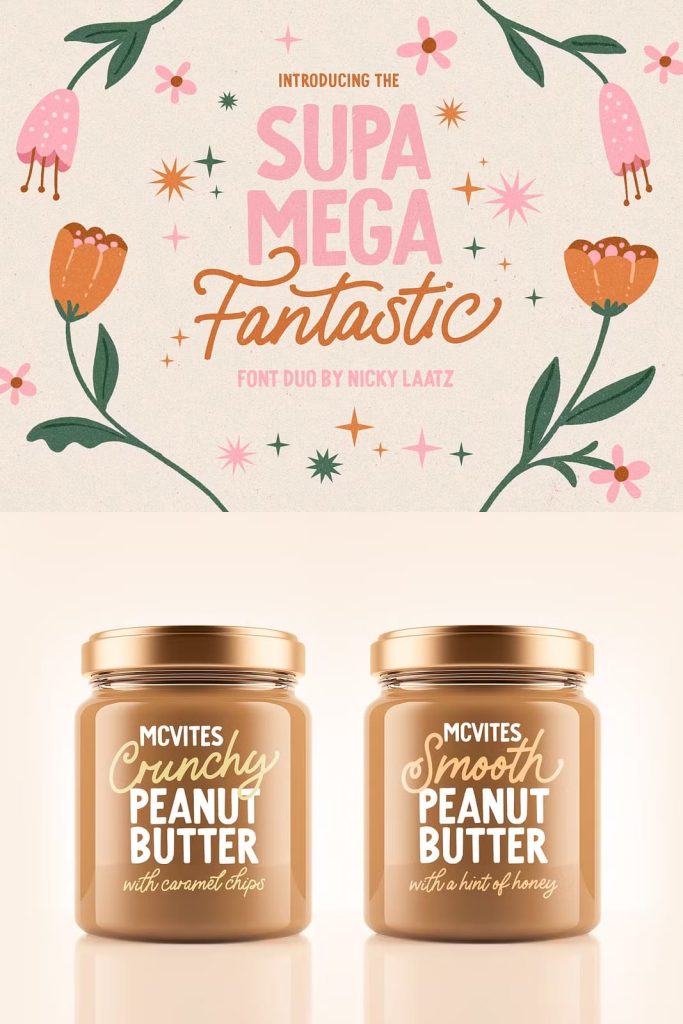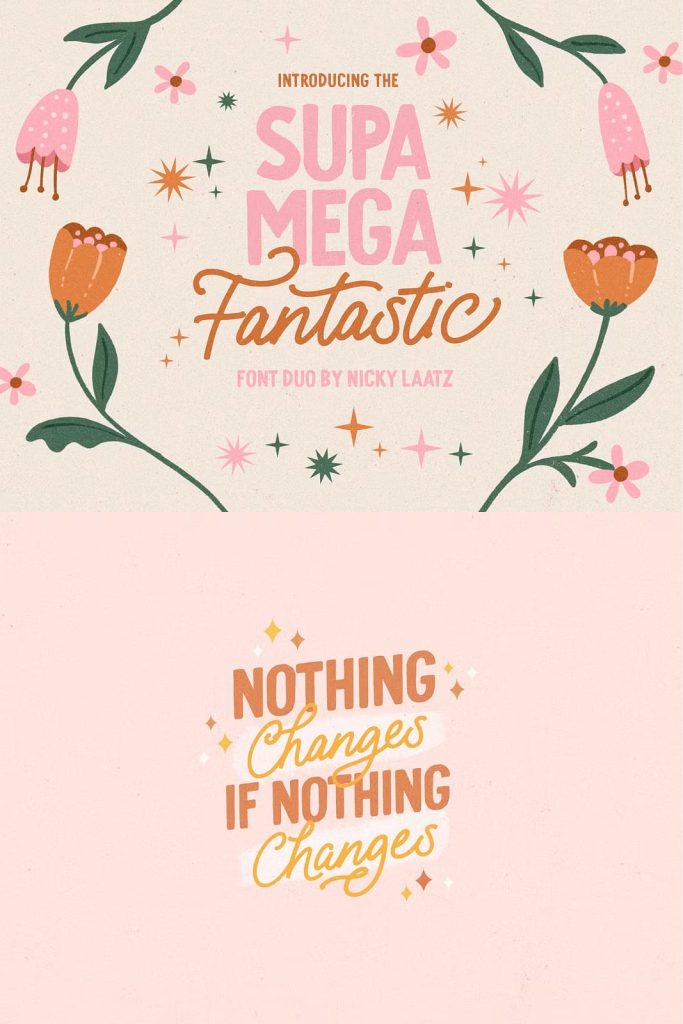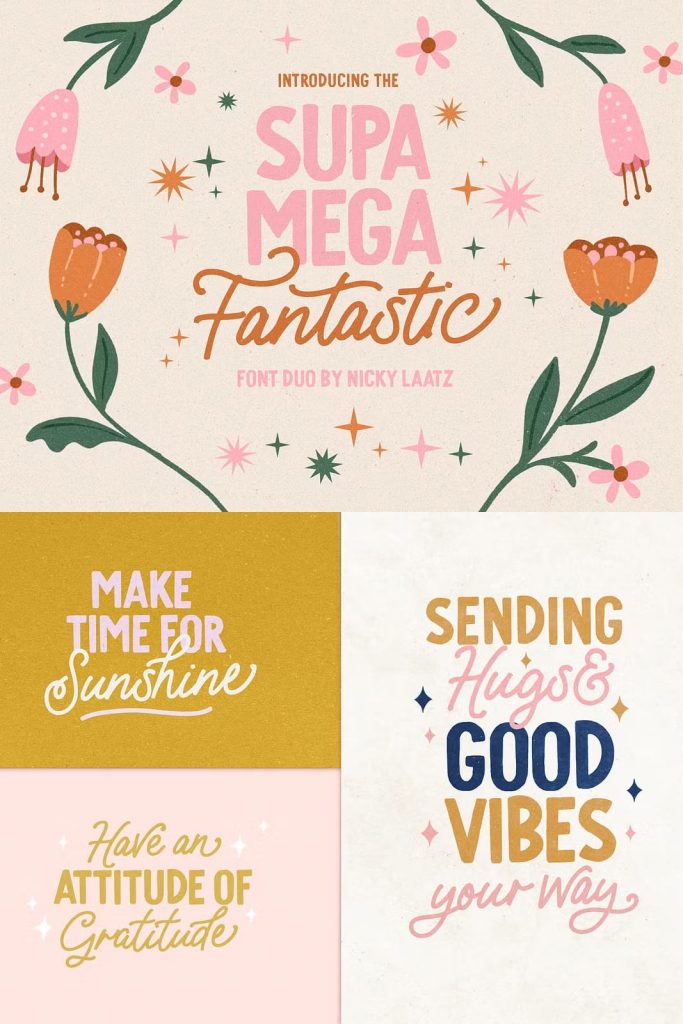
Say hello to the Supa Mega Fantastic Font Duo! A sweet little duo of hand lettered sign-painter style fonts. A playful monoline script and a chunky all caps sans serif.